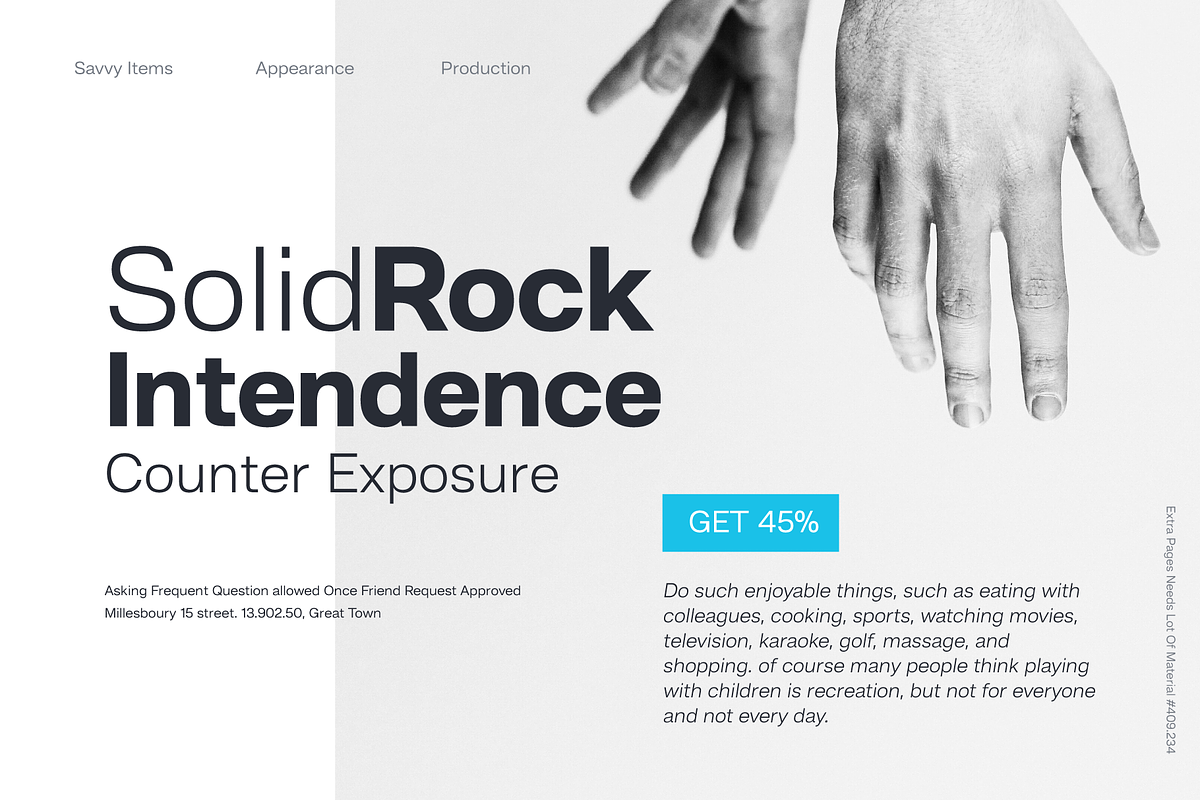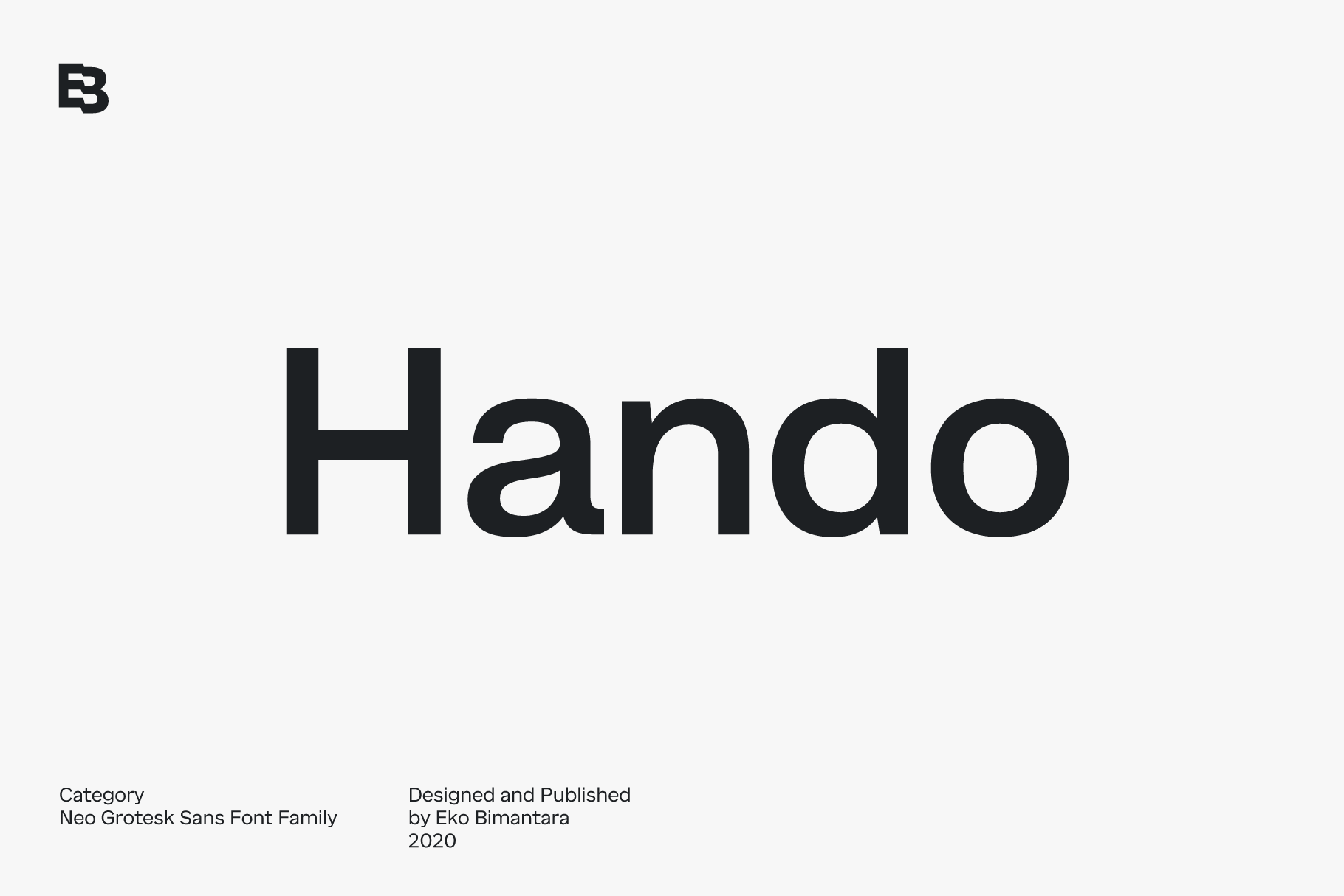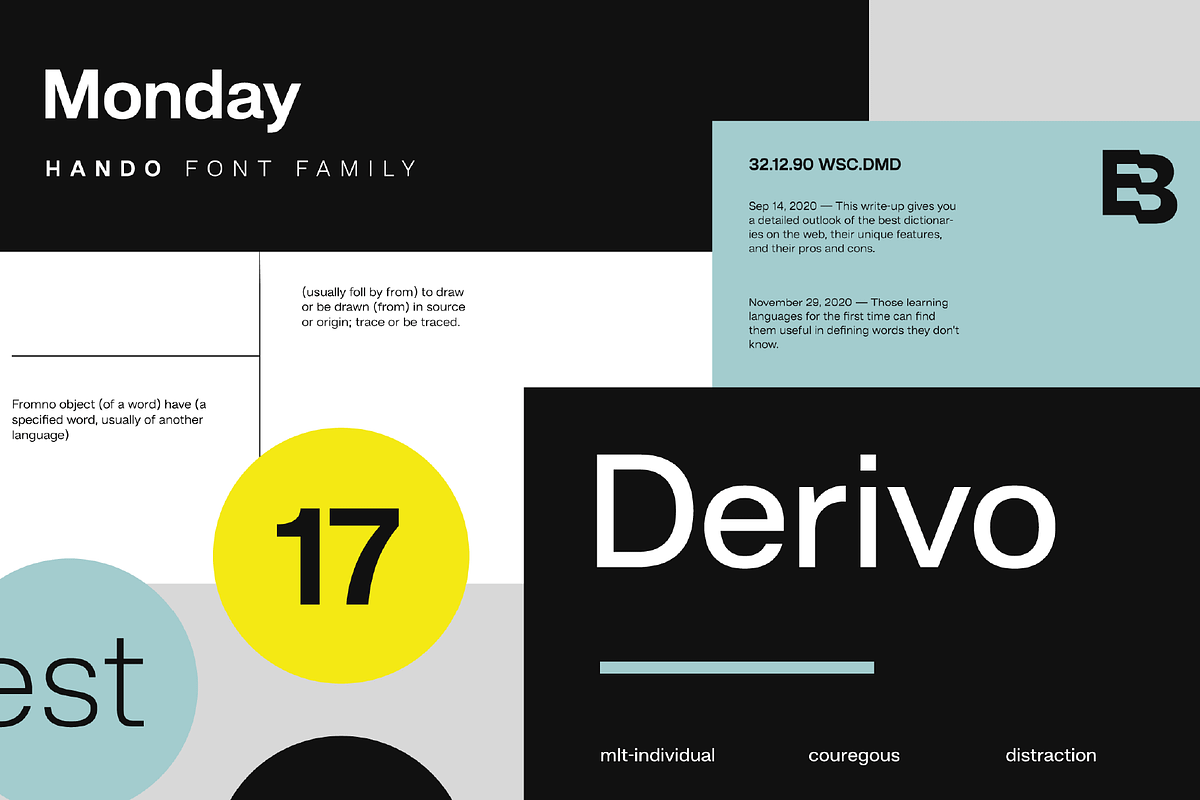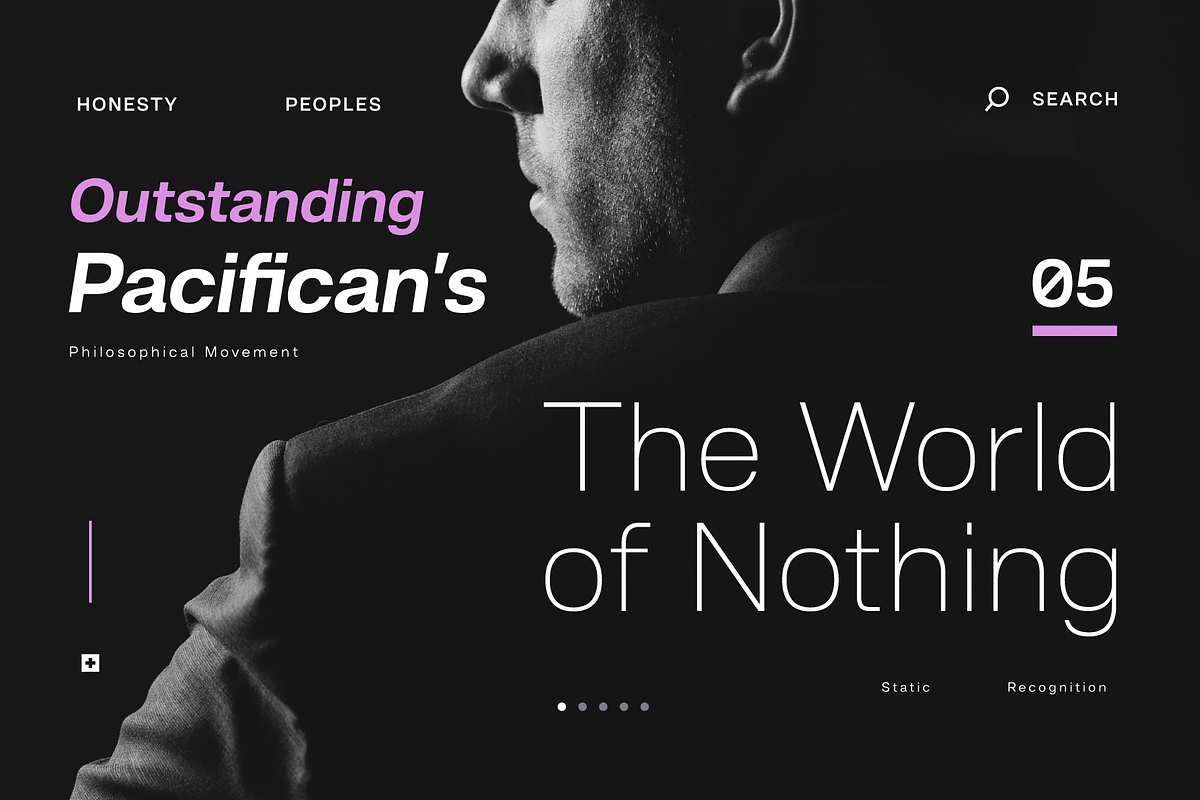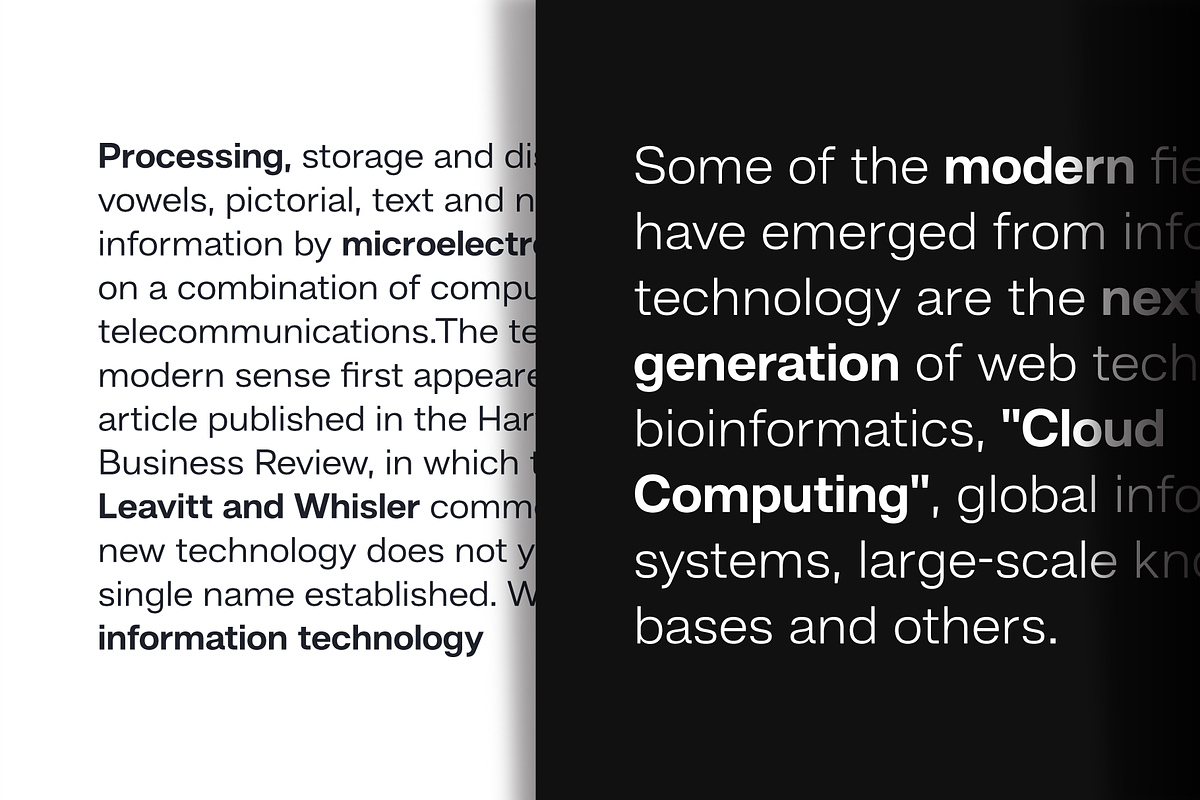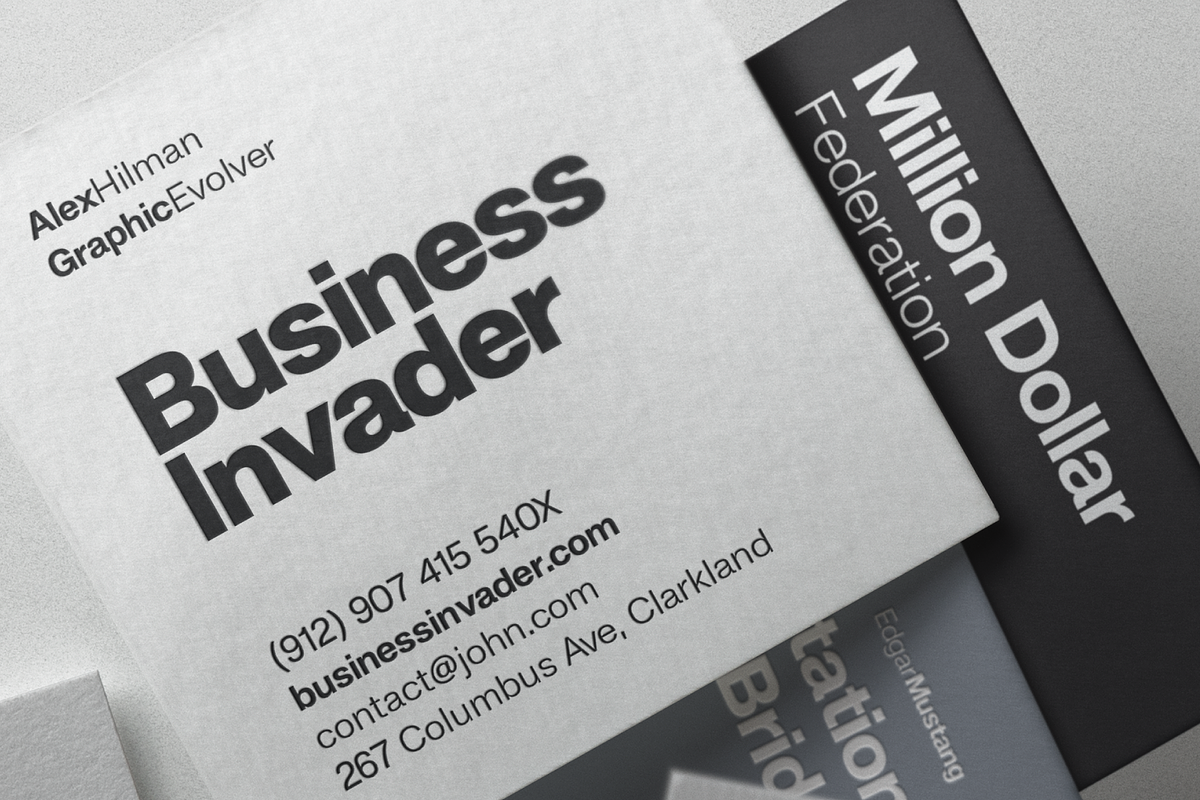
Hando; 20 Fonts of Sans Serif
Being one of the most popular font style; Neo Grotesk, Hando offers a wide range of usage possibilities. It's low x-height and variety of light size options make it a good choice for reading, it's tenuous white spaces in the counter letterforms make it legible enough to be recognized remotely. It's curve tensions on the circular letterforms gave a futuristic impression. It's sleek and simple strokes make it perfect for a broad range design purposes. Hando consist of 10 syles from Hairline to Black with each matching oblique. Contain more than 440 glyphs that support a broad latin languages. Also some Opentype features e.g. stylistic alternates, variation of figures, e.t.c